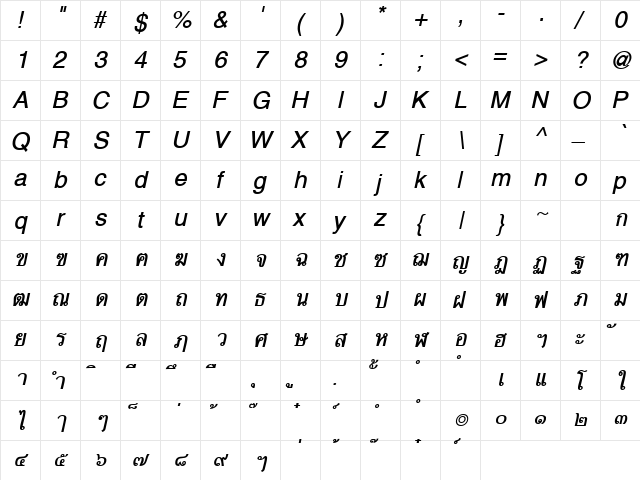
ThaiBangkokSSK BoldItalic
Design Context for ThaiBangkokSSK Typeface
ThaiBangkokSSK is a composed and adaptable typeface that performs quietly and consistently across a wide range of design contexts. The dynamic lean of this cut emphasises speed and emphasis in any layout. Its bold stroke weight gives it real presence on the page.
Pro Tip: Try ThaiBangkokSSK for annotation and caption copy alongside an upright companion — the contrast in angle creates a dynamic but ordered typographic system.